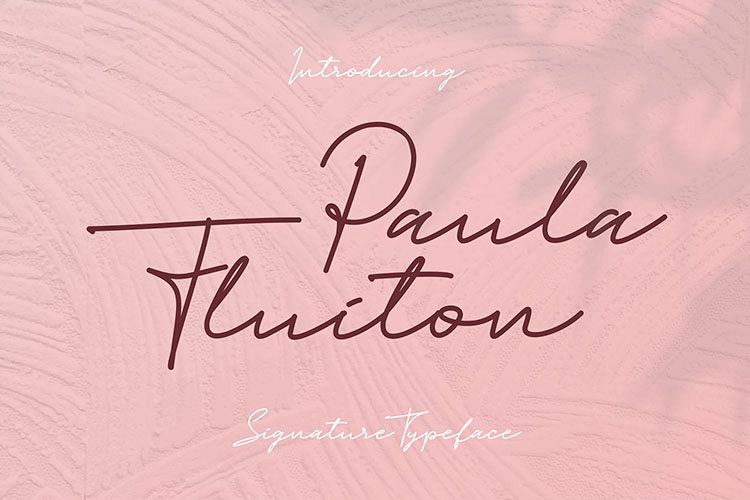
Paula Fluiton
Paula Fluiton, font with an elegant signature style. This typeface is suitable when used for writing a brand name, as a logo or naming a product. When used for an invitation or greeting card, it will make the greeting you write more beautiful and luxurious.